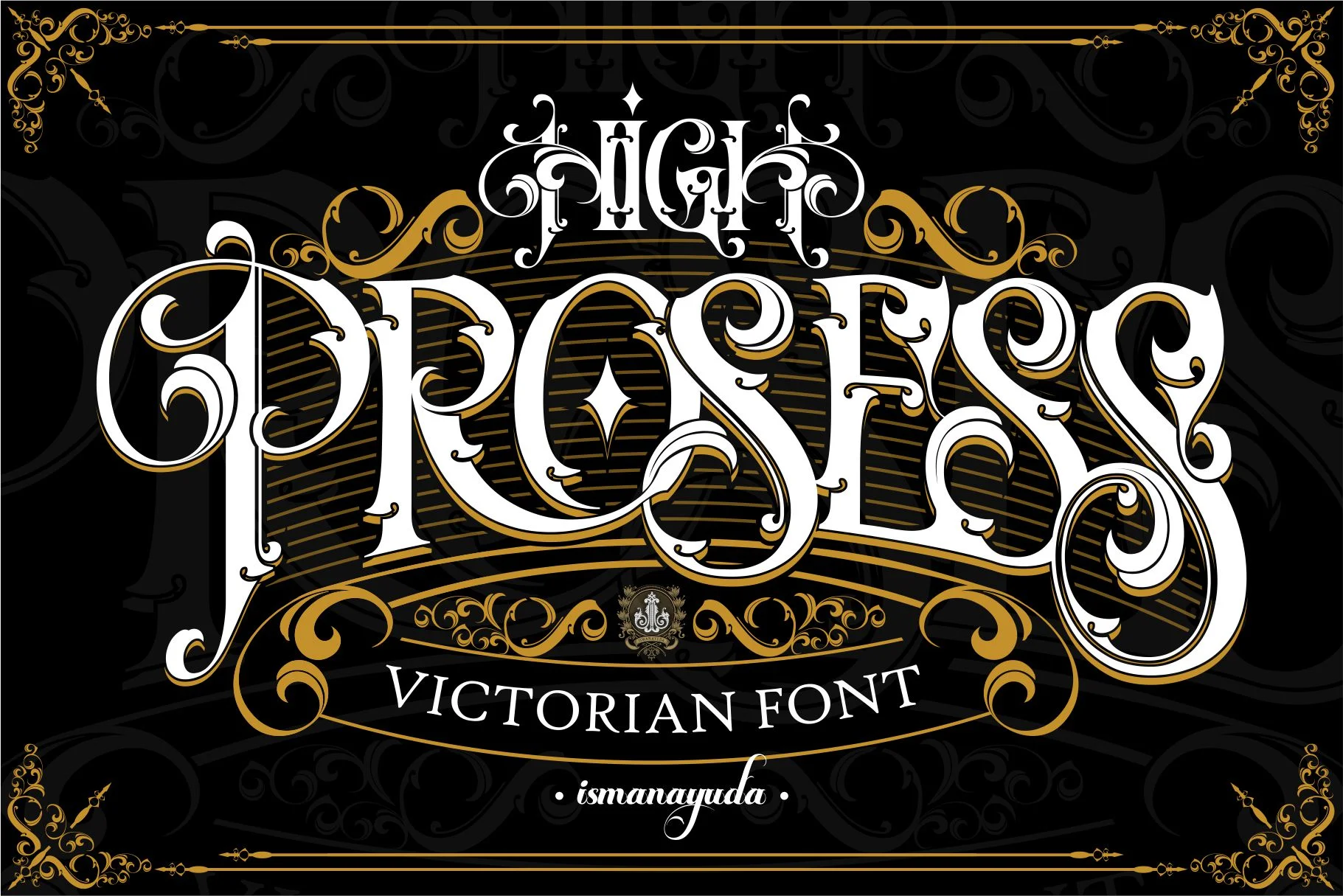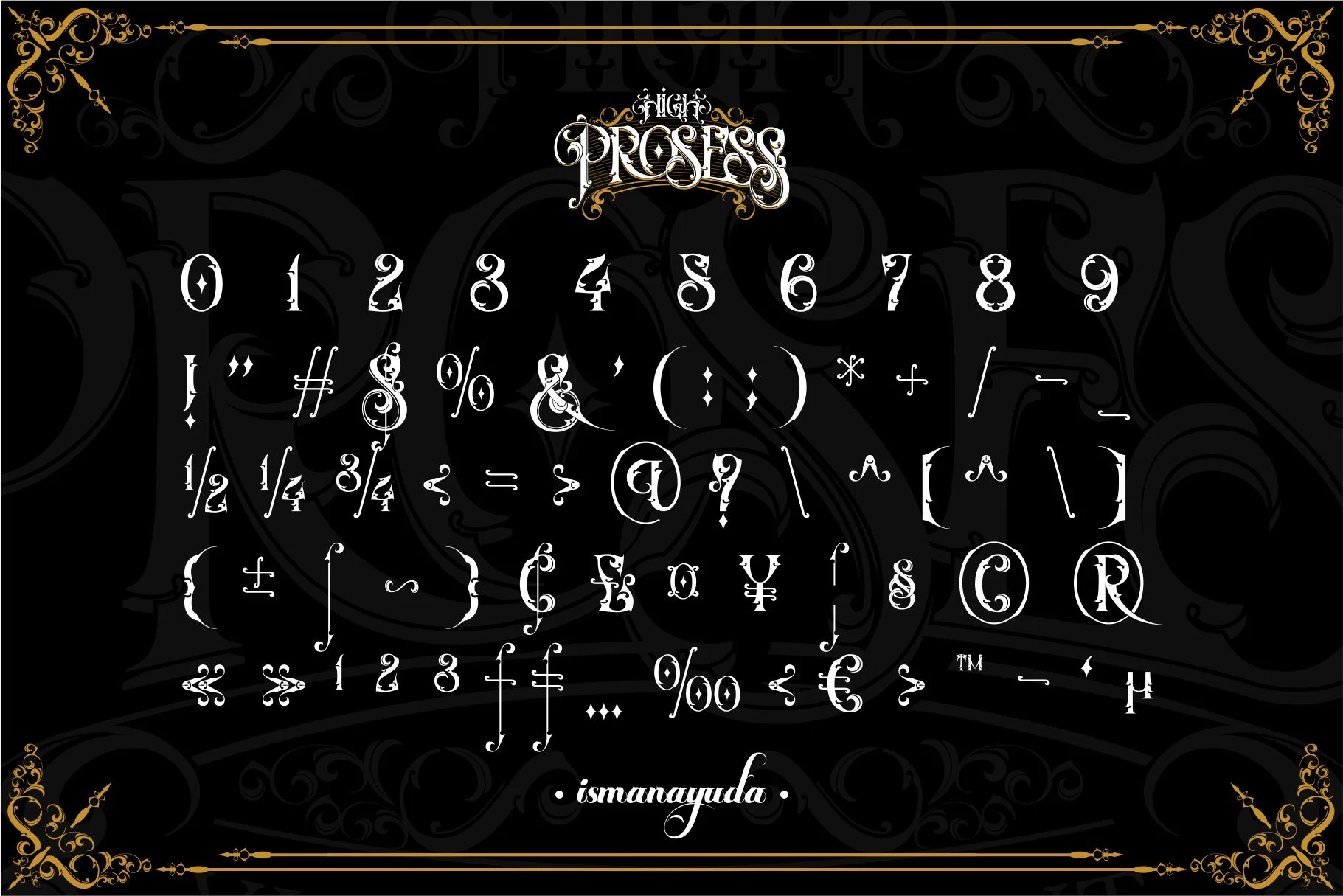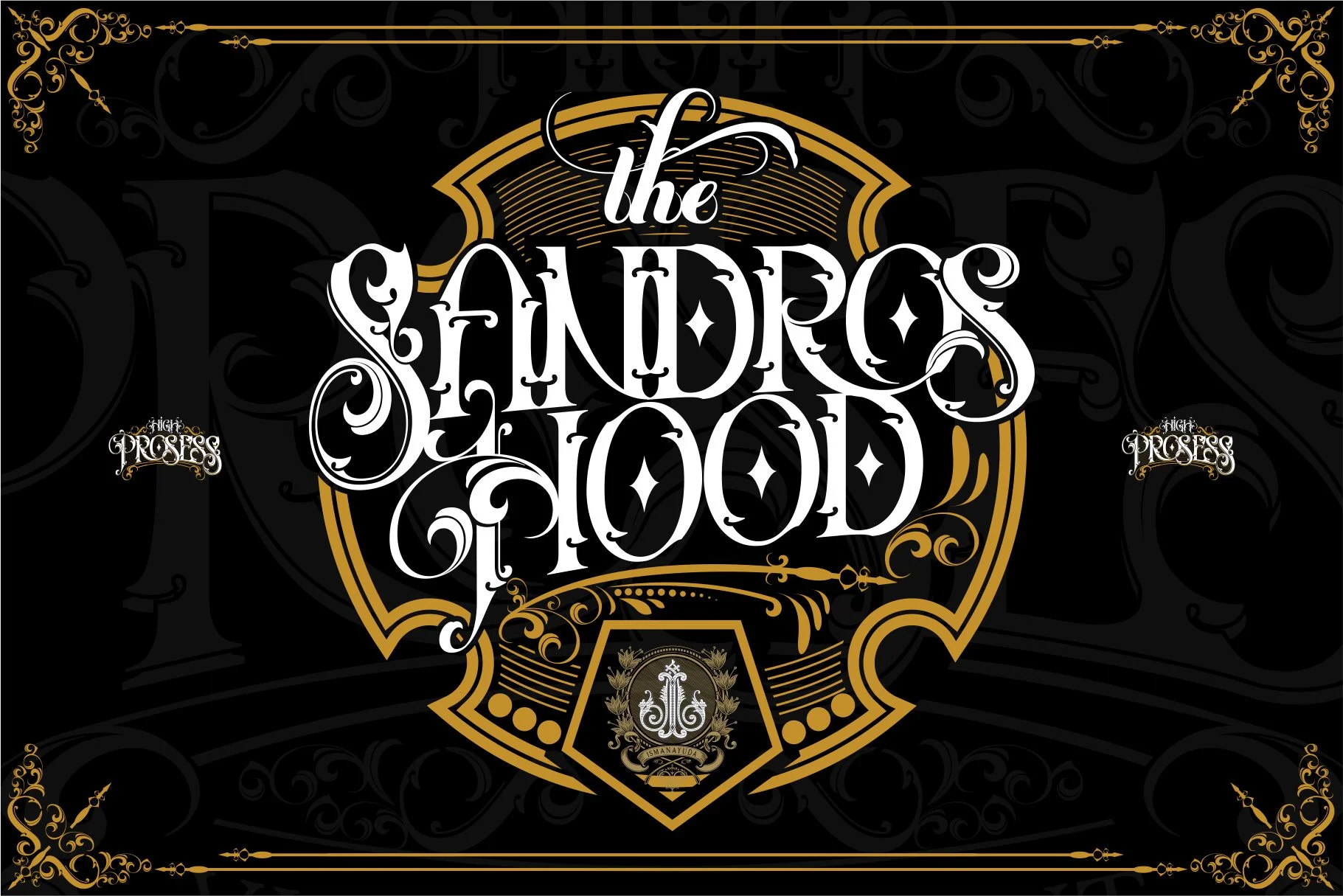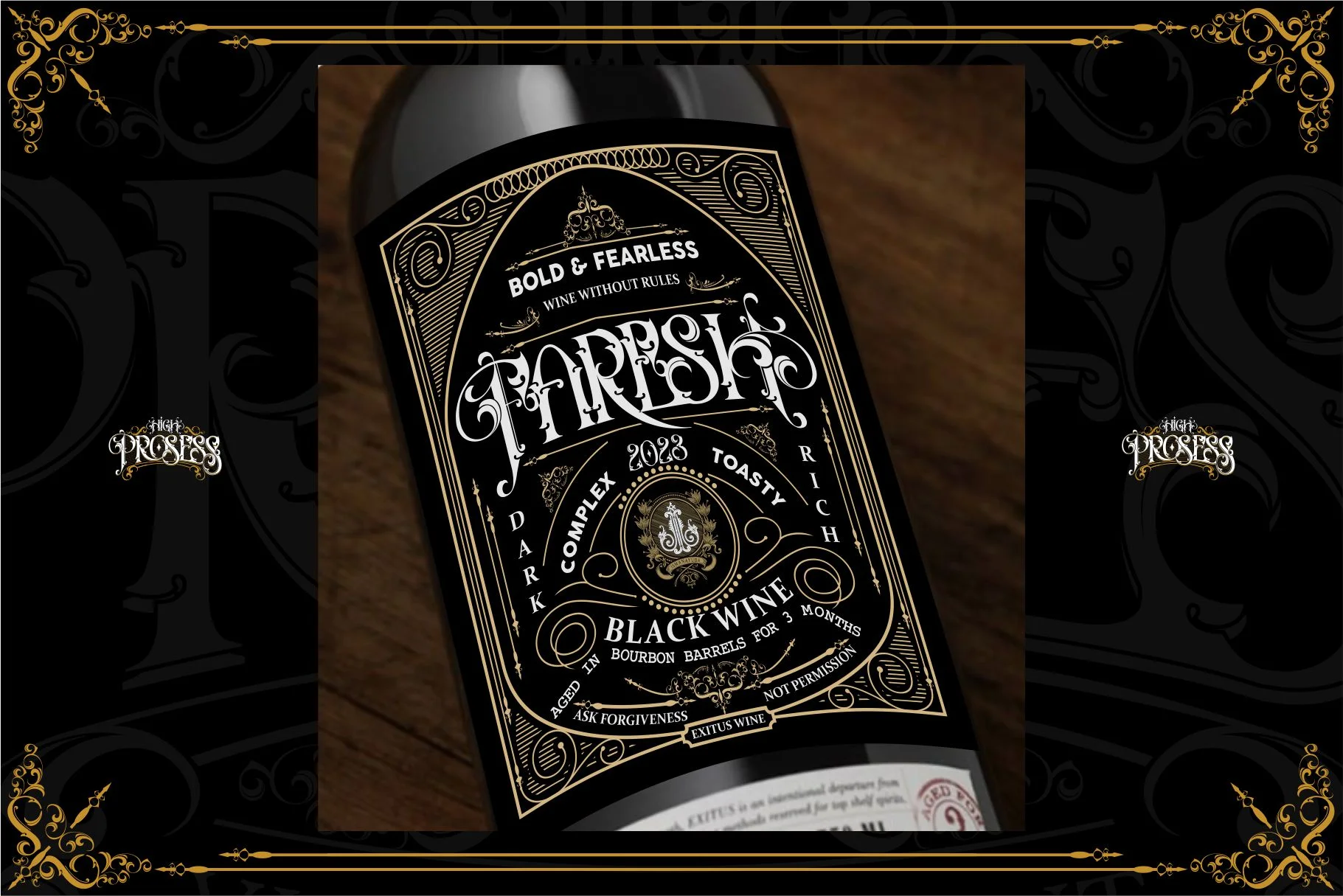
High proses
High Prosess is a bold, uniquely designed Victorian-style blackletter font. features a highly ornamental aesthetic characterized by intricate detailing, ornate serifs, and dramatic, sweeping swashes. The letterforms incorporate classic gothic elements with vertical stress and complex flourishes, making it a high-impact choice for specialized visual needs. Its "masterpiece" quality is specifically tailored for tattoo studio branding, vintage-inspired apparel mock-ups, and luxury shop signage.